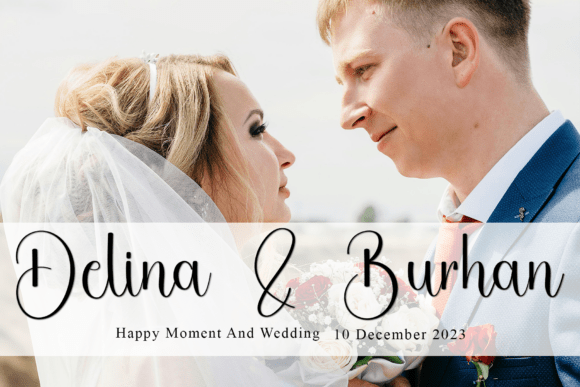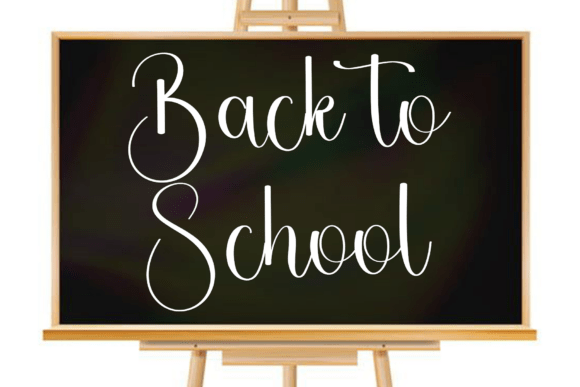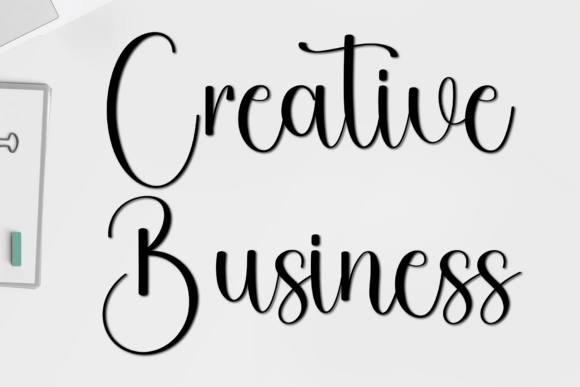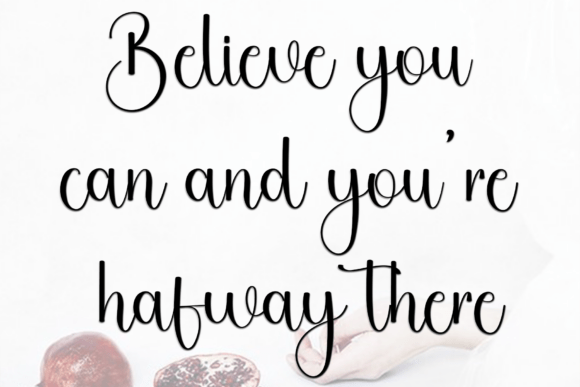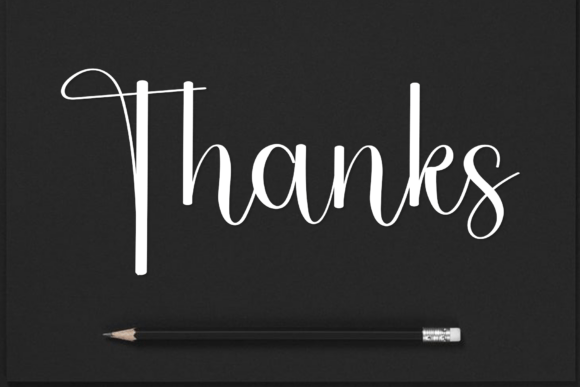
The Art of Handwritten Elegance: Discovering the Angela Handwriting Font
Have you ever stumbled upon a beautifully crafted handwritten note that left you in awe? Perhaps it was a heartfelt birthday message from a loved one or a sweet wedding invitation that set the tone for a magical day. Whatever the moment, it’s safe to say that handwritten fonts have a way of touching our hearts and making a lasting impression. One such font that embodies this elegance and charm is the Angela Handwriting Font.
Designed to mimic authentic handwriting with an artistic flair, the Angela Handwriting Font is a stunning, simple script typeface that exudes modern elegance and a delicate, feminine charm. This versatile font is perfect for designers looking to add a touch of sophistication to their work, from wedding stationery to fashion branding and product packaging.
Angela Handwriting Font Key Features
- Font Family: Angela Handwriting Font is a unique, handwritten font designed to mimic the look of hand-written text.
- Character Set: Includes a wide range of characters, including uppercase and lowercase letters, numbers, punctuation marks, and special characters.
- Unique Characteristics: Angela Handwriting Font features a natural, flowing feel with subtle variations in letterforms, giving it a personal and human touch.
Designer Review: Angela Handwriting Font
Overall, I think the Angela Handwriting Font is a great choice for those looking for a casual, handwritten feel. ✨ The font is highly customizable, allowing you to adjust the thickness, spacing, and style to suit your needs.
- The font is highly legible, even at smaller sizes, making it perfect for body text or quotes.
- It has a unique, personal touch that can add a lot of character to your design.
- It’s great for creating a sense of informality or friendliness, making it perfect for blog posts, social media, or marketing materials.
However, there are a few limitations to consider. ⚠️ The font can be a bit too casual for formal or professional projects, and may not be suitable for titles or headings.
Additionally, some users may find the font’s variability in letter spacing and thickness to be a bit too inconsistent, which can affect the overall look and feel of your design.
Overall, I think the Angela Handwriting Font is a great choice for designers looking for a unique, handwritten feel. While it may not be perfect for every project, it’s a great option for those looking to add a bit of personality to their designs.
For a more authentic look, use the font in combination with other handwriting fonts or add textures and effects to give it a personal touch.
For a more realistic look, use the font in combination with brush strokes or textures to mimic handwritten text.
For a more personalized look, use the font in combination with other fonts or add effects to give it a unique touch.
Use the Angela Handwriting Font for:
1. Invitations and greeting cards.
2. Personalized gifts and stationery.
3. Social media posts and captions.
4. Quotes and inspirational messages.
Remember to experiment with different font sizes, colors, and combinations to achieve the desired look and feel.
Alternatives to Angela Handwriting Font
Curlz Handwriting Font
Curlz is a playful and elegant font that can add a touch of whimsy to your designs. It’s ideal for use in titles, headings, and other text elements where you want to create a sense of movement and energy.
Compared to Angela Handwriting Font, Curlz has a more fluid and cursive feel, making it better suited for designs that require a more dynamic and expressive look.